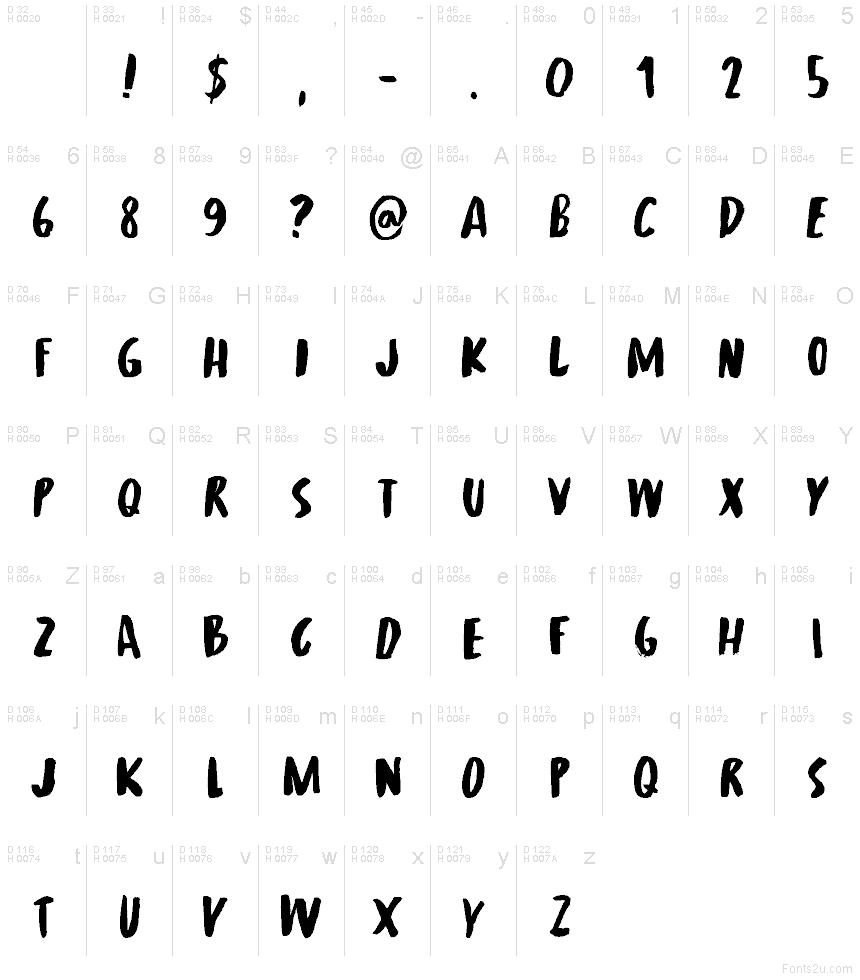
Henchman DEMO Regular
Henchman font is a free brush font by Hanoded that creates its own rules. Even with its impolite vibe, this trending display typeface still manages to showcase an exceptional design that can be used for branding and packaging projects. Its rugged demeanor which is reflected in the texture of each character makes it an entertaining choice to work with.
Your notebooks no longer have to stay blank, not when you use Henchman for comic strips or books, albums posters, music and art magazines covers, motivational posters, flyers. You can also personalize your invitations or create sketchbook covers. And because social media platforms are essential nowadays, you can let the bold in Henchmen shine with Instagram posts.